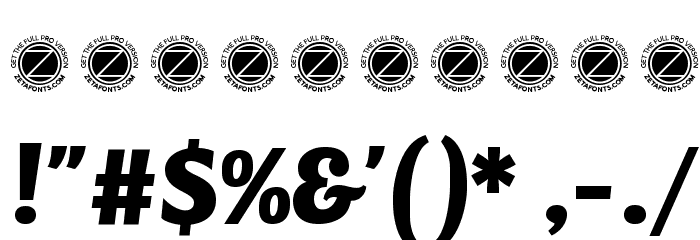
Bulletto Killa¬ Font
This font features a bold and dynamic script style with a strong presence. The characters are connected in a fluid manner, giving it a sense of motion and energy. The uppercase letters are prominent and slightly slanted, while the lowercase letters maintain a consistent flow. The font includes a full set of numerals and a variety of special characters, making it versatile for different design needs. The strokes are thick and consistent, providing a high contrast that enhances readability and impact. This font is ideal for projects that require a bold and expressive touch.
A bold, dynamic script font with high contrast and fluid connections.
- Proposed Projects: Ideal for branding, headlines, posters, and any design requiring a bold, expressive touch.